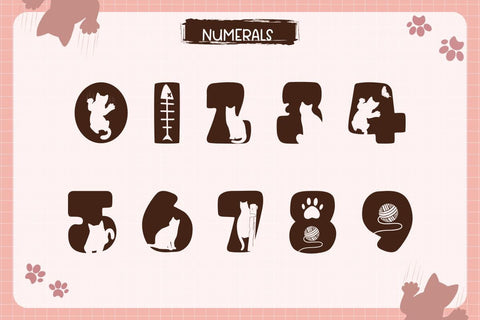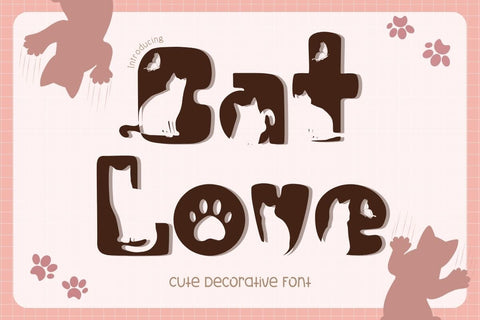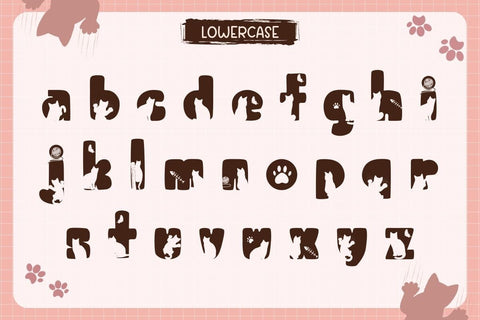
Cat Love - Cute Decorative font
Introducing Cat Love, a cute decorative font filled with playful cat silhouettes, paw prints, fish bones, yarn balls, and butterflies. Perfect for all cat lovers, this font brings charm and fun to any design project.
Ideal for pet shop branding, cat-themed crafts, invitations, tote bags, t-shirts, mugs, stickers, scrapbooking, and social media graphics.